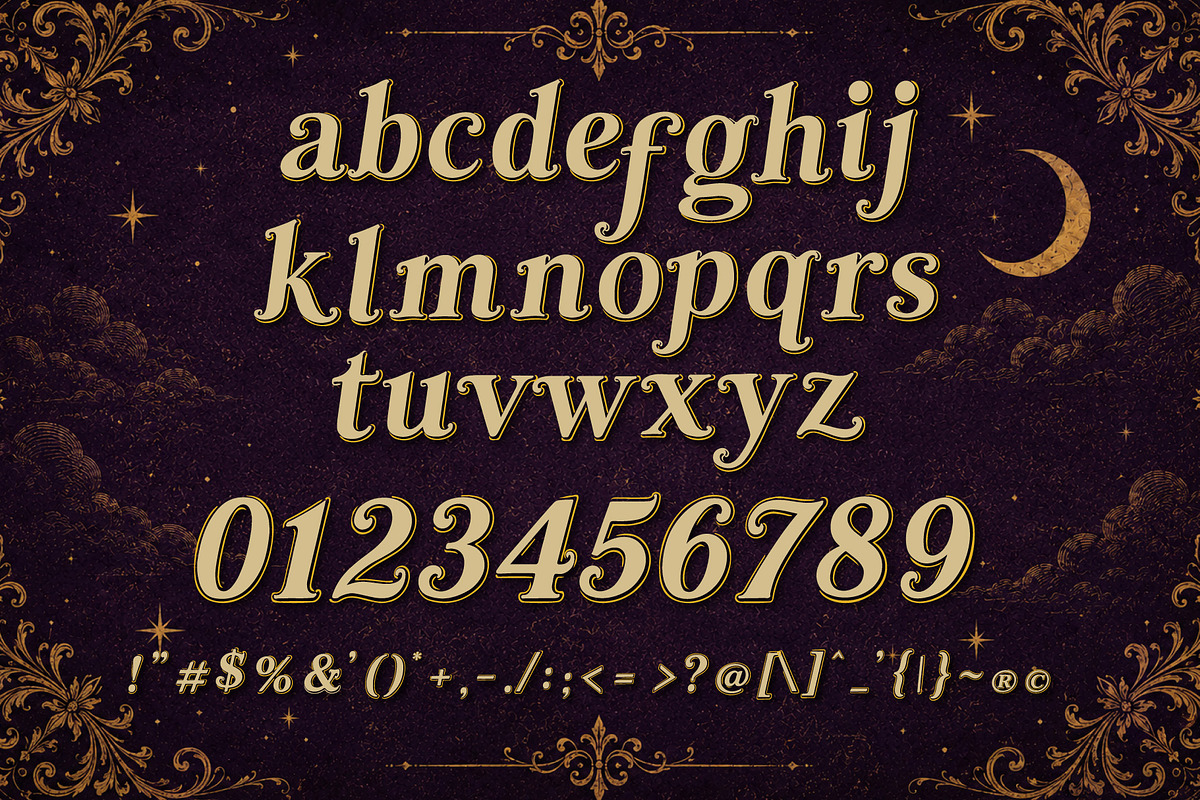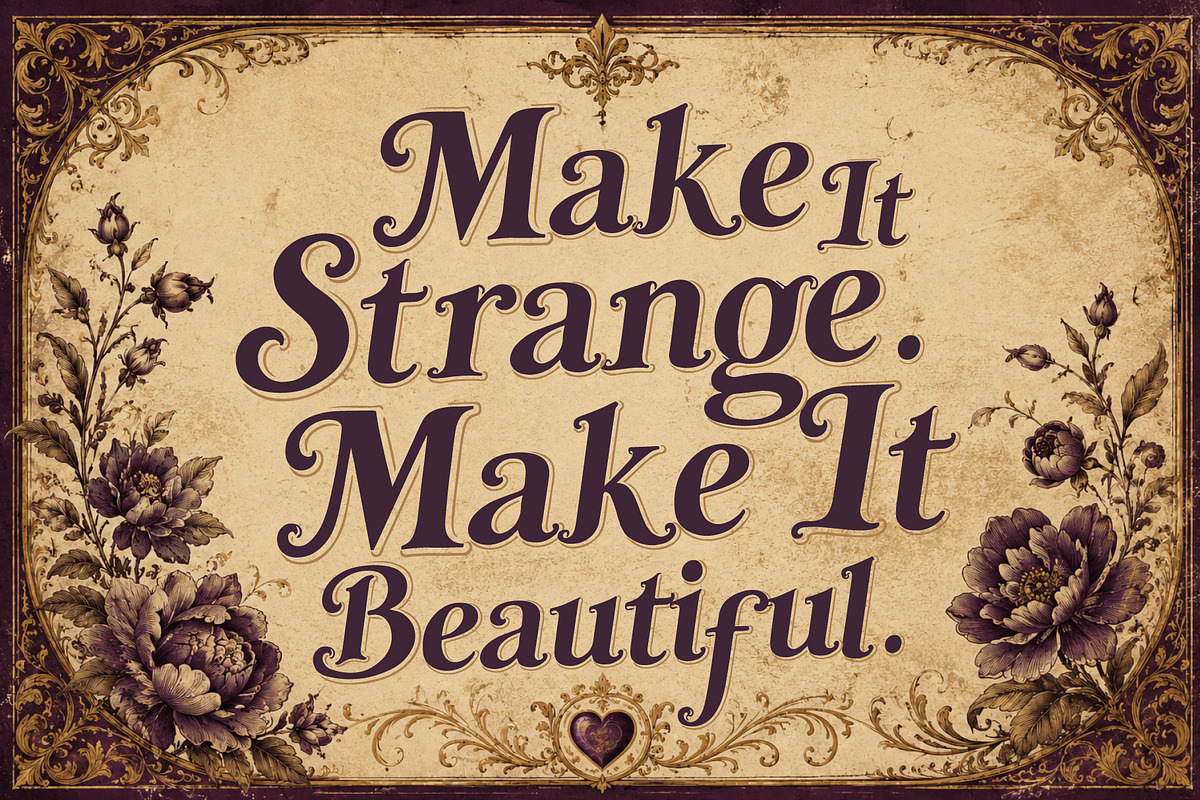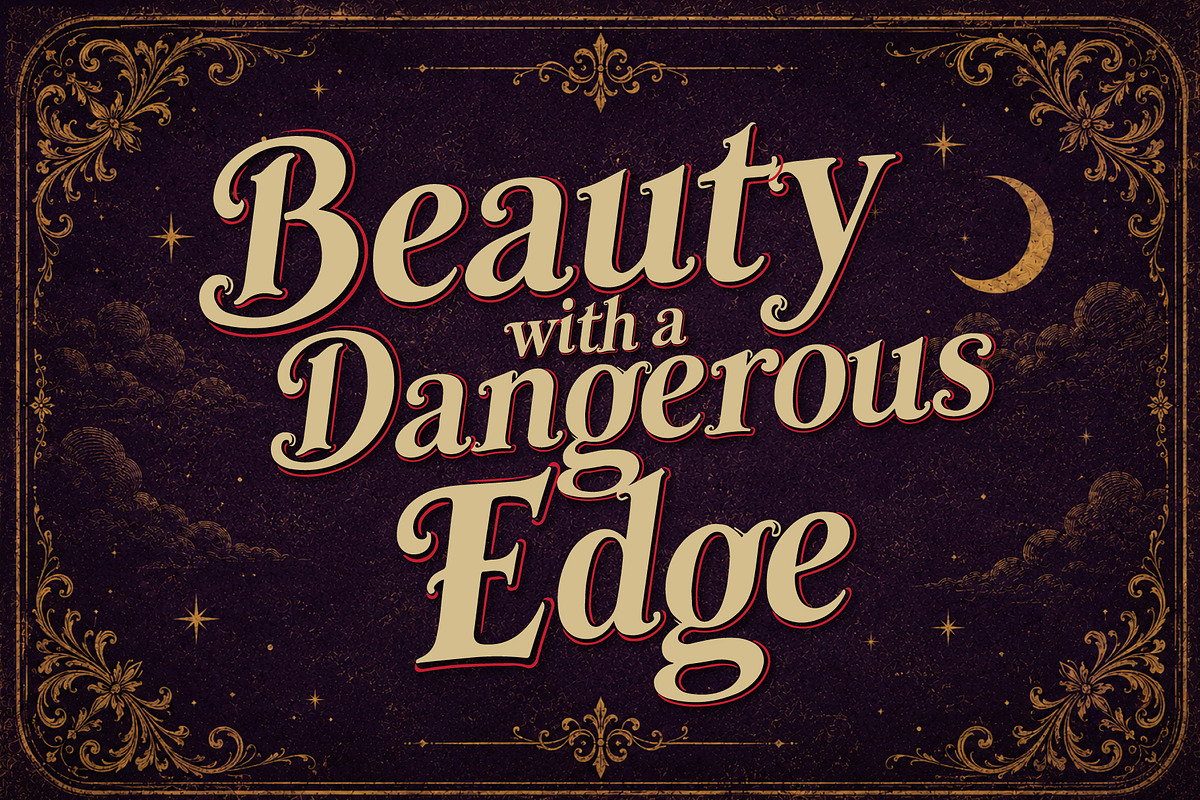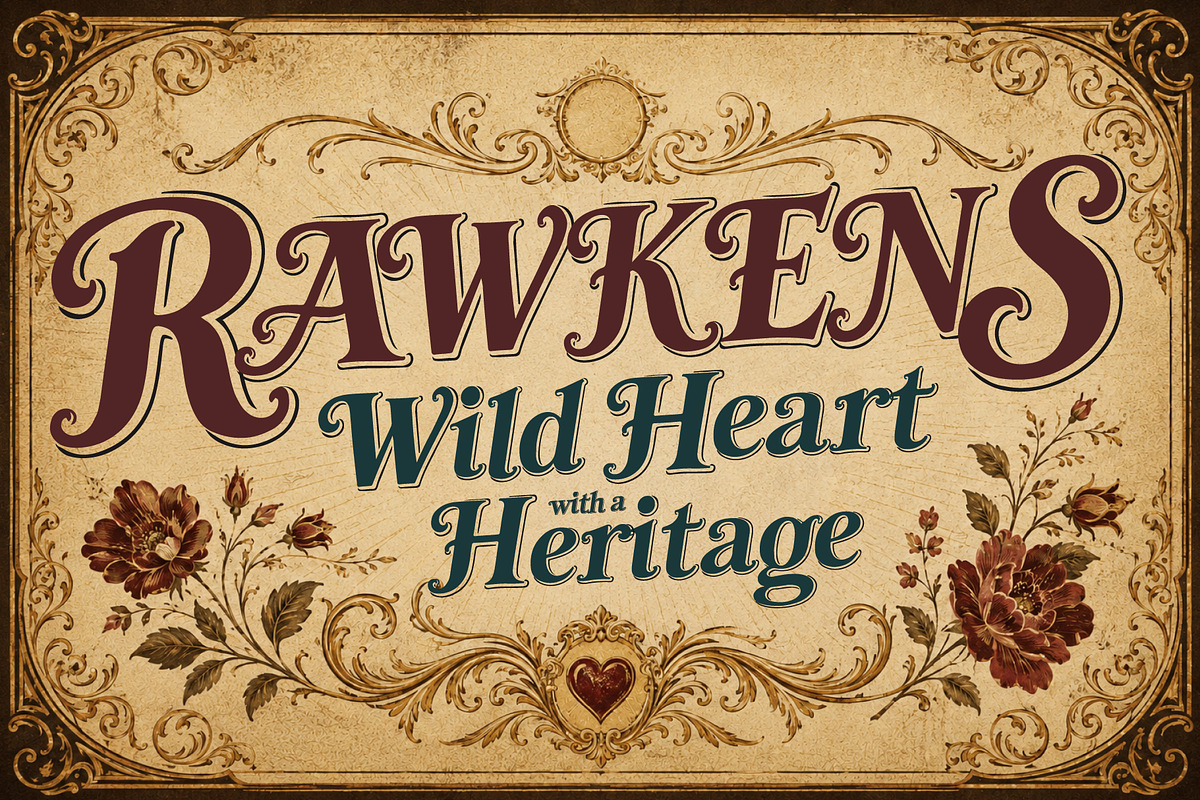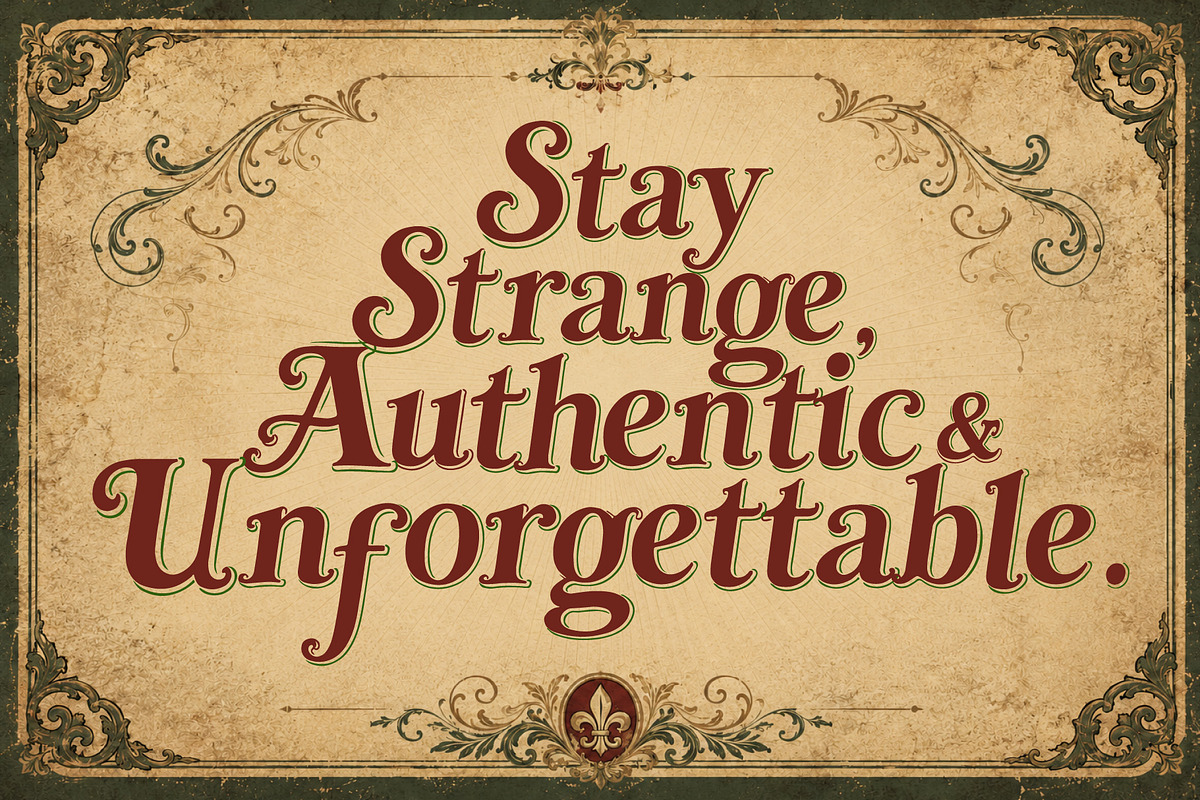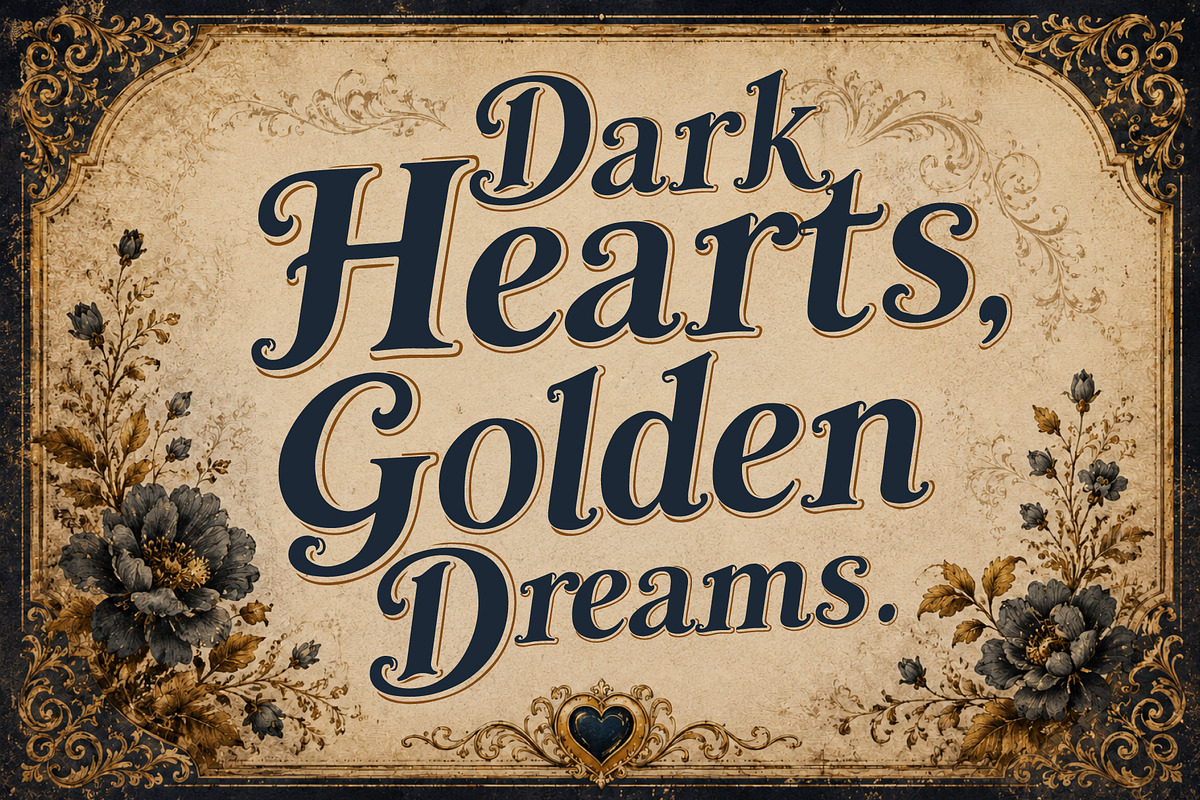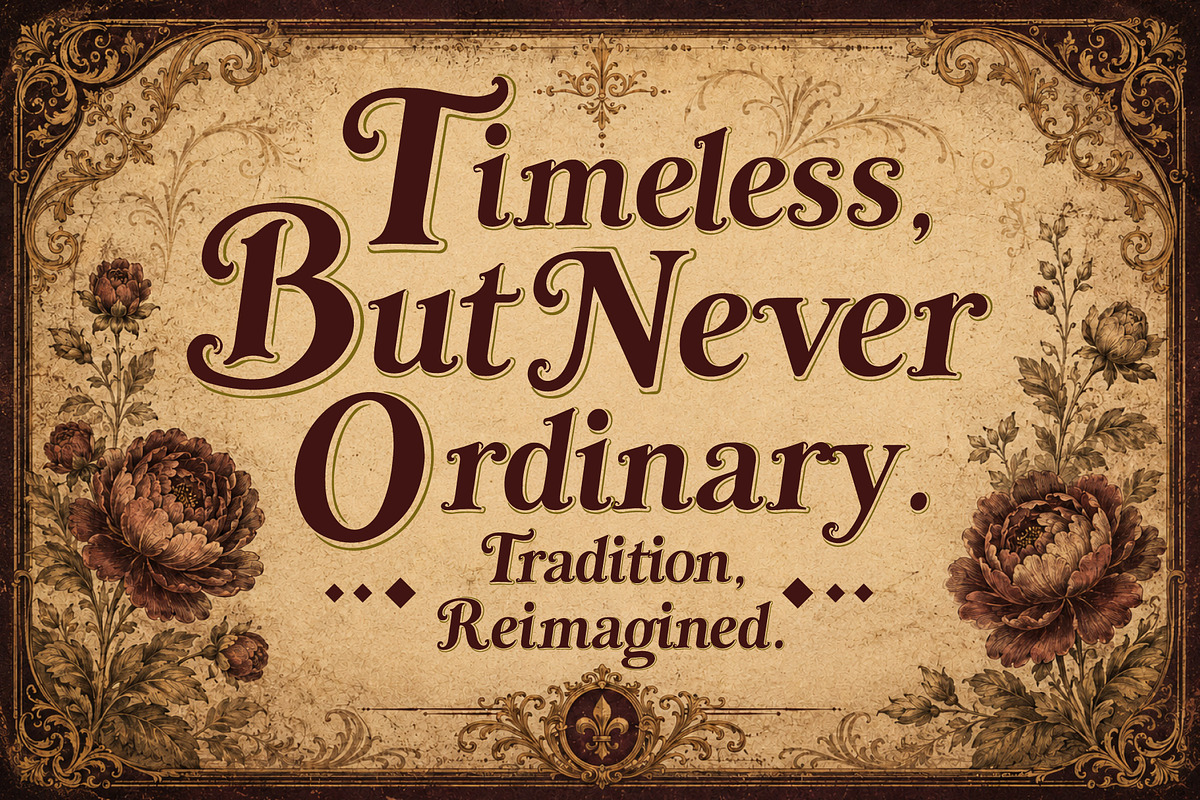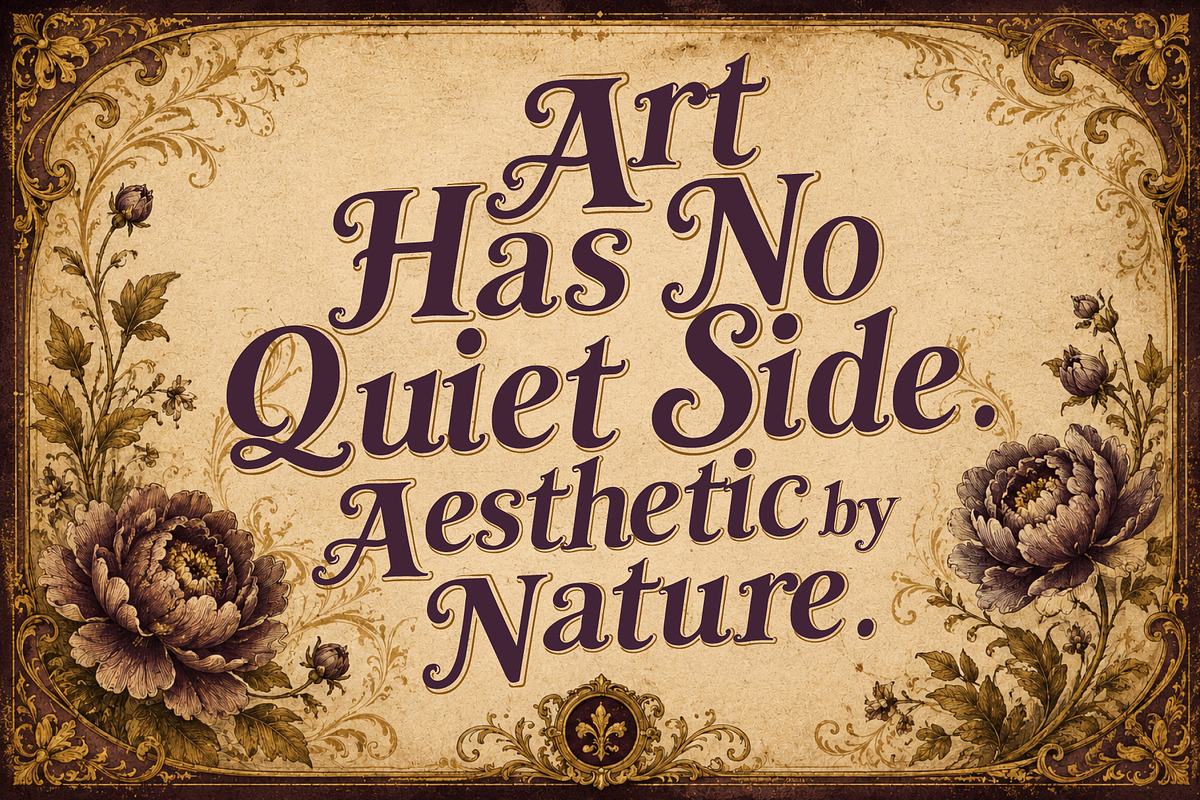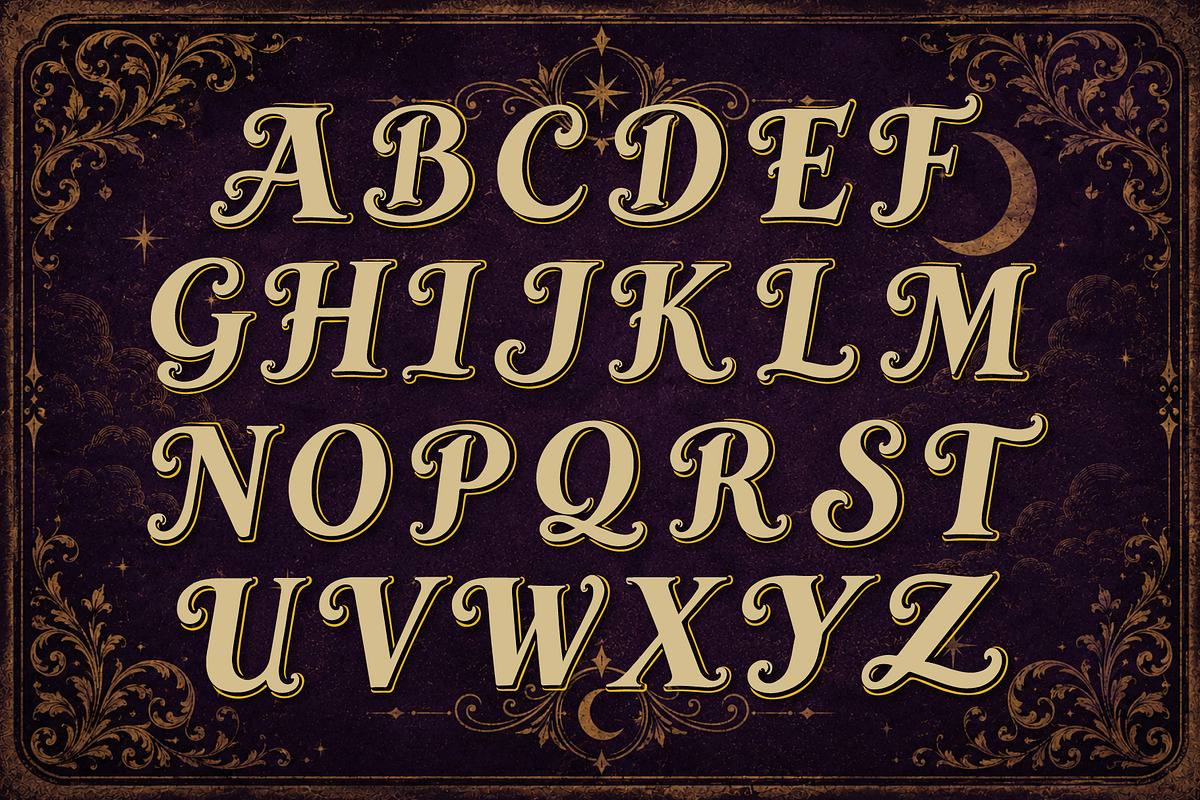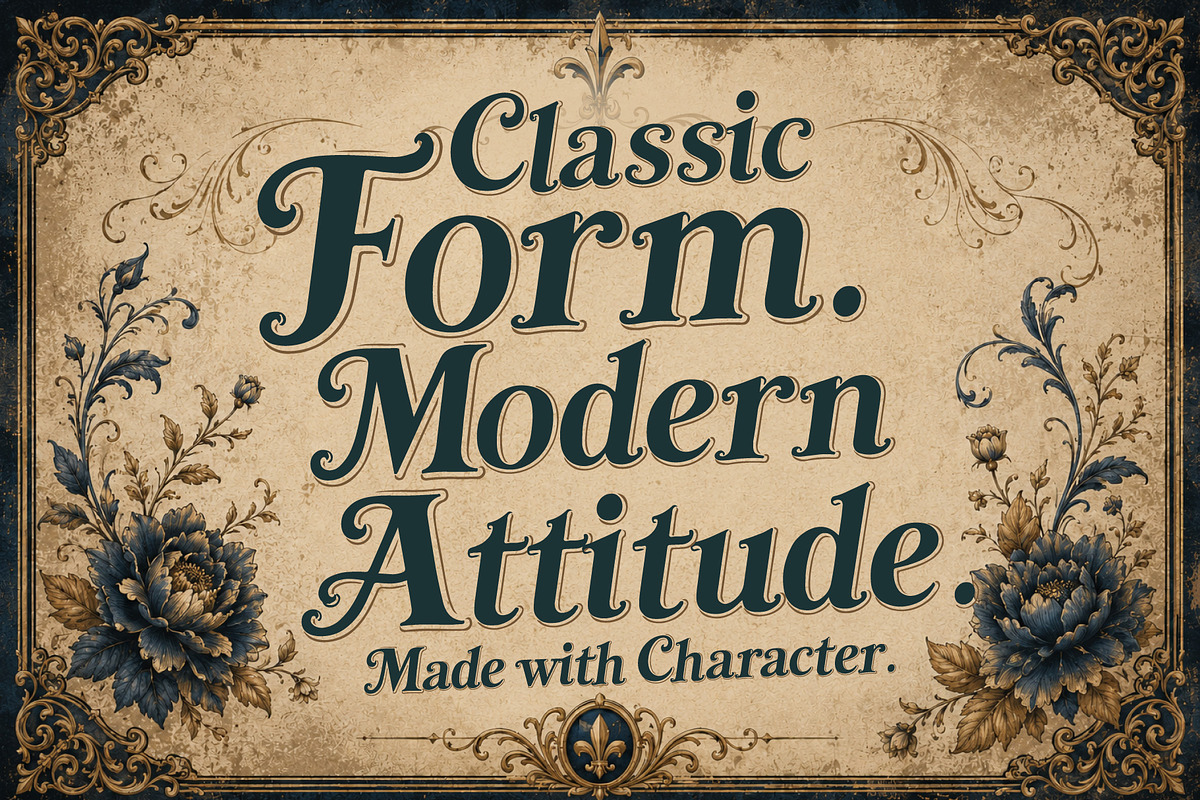
Rawkens - Beautiful Victorian Rebels
Rawkens is a bold vintage display typeface inspired by the timeless character of the American West, classic saloon signs, frontier posters, and ornate Victorian lettering. Its heavy serif structure is enriched with decorative curves, curled terminals, and expressive details that give every word a distinctive old-school presence.
Built for attention-grabbing typography, Rawkens combines rugged Western character with elegant vintage ornamentation. It works beautifully for branding, posters, apparel, packaging, signage, badges, labels, album artwork, and editorial headlines.
Bring a little frontier spirit, outlaw attitude, and vintage Americana to your next design with Rawkens.